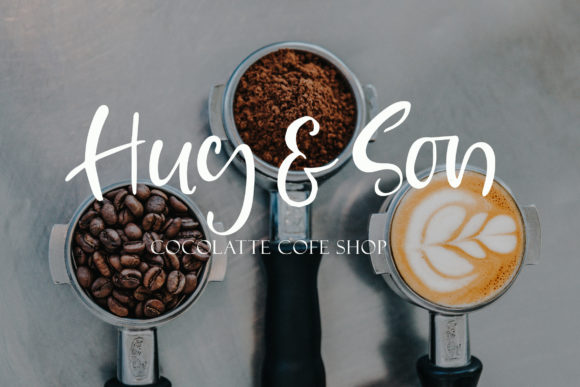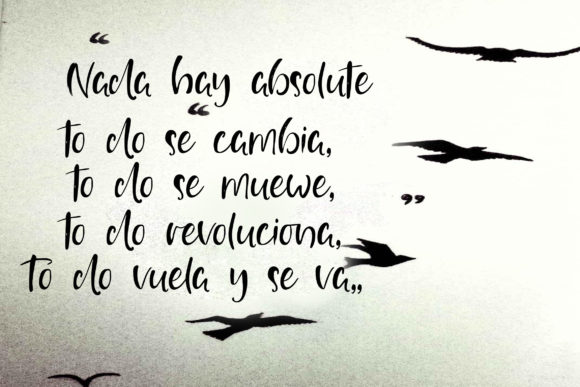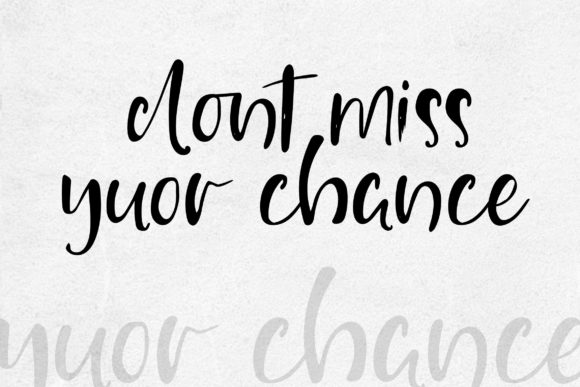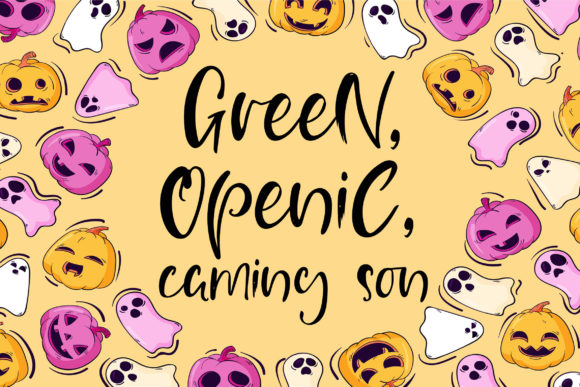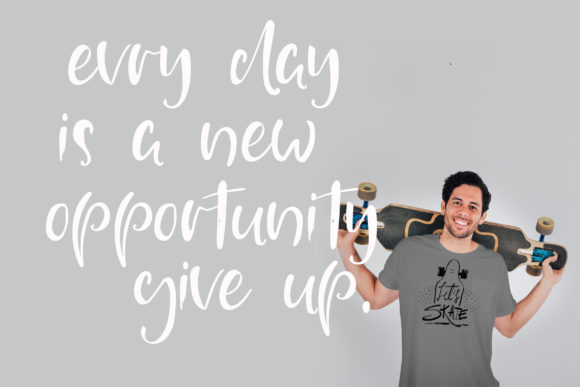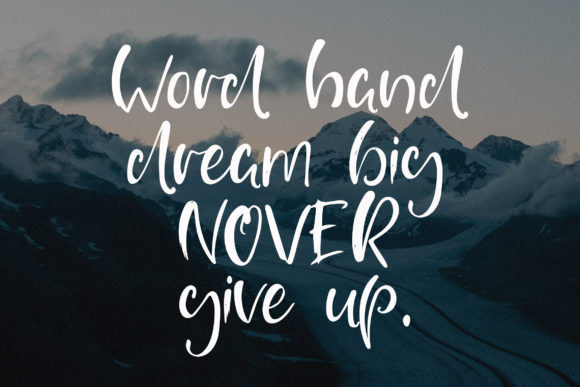
Discover the Magic of Fantasy Island Font
Have you ever stumbled upon a beautiful handwritten font that instantly sparks your creativity and sets your imagination running wild? That’s exactly what happens when you lay eyes on the Fantasy Island Font. This unique and elegant script font is a game-changer for designers and artists looking to add a touch of personality to their designs.
The Fantasy Island Font is designed to bring a sense of whimsy and romance to a variety of projects, from wedding invitations and thank you cards to logos and greeting cards. Its beautiful, flowing letters make it perfect for designers who want to add a touch of sophistication and elegance to their work.
Whether you’re a seasoned designer or just starting out, the Fantasy Island Font is a valuable addition to your toolkit. Its versatility and unique style make it a must-have for anyone looking to add a little extra magic to their designs.
Fantasy Island Font Key Features
- Unique Characteristics: Fantasy Island Font features a distinctive, hand-drawn style with intricate details and ornate flourishes, evoking a sense of fantasy and whimsy.
- Character Set: The font includes a wide range of characters, including uppercase and lowercase letters, numbers, punctuation marks, and special characters, making it suitable for a variety of applications.
Fantasy Island Font Review
Overall, I found the Fantasy Island Font to be a visually stunning and unique addition to any design project. The font’s ✨ whimsical feel and ✨ playful flair make it perfect for creating a sense of wonder and magic in your designs.
Here are some of the things I liked about the Fantasy Island Font:
- ✨ The font’s ✨ intricate details and ✨ ornate flourishes add a touch of sophistication and elegance to any design.
- ✨ The font is highly versatile and can be used for a wide range of projects, from children’s books to fantasy-themed websites.
- ✨ The font’s ✨ unique character set and ✨ special effects make it a great choice for creating eye-catching headlines and titles.
However, I did encounter a few limitations with the Fantasy Island Font:
- ⚠️ The font can be quite dense and may not be the best choice for long blocks of text.
- ⚠️ The font’s ✨ intricate details can make it difficult to read at small sizes or in low-resolution environments.
Overall, I would highly recommend the Fantasy Island Font to designers looking to add a touch of magic to their projects. While it may have some limitations, the font’s unique charm and versatility make it a valuable addition to any design toolbox.
Tips for Getting the Most Out of Fantasy Island Font
For the best results, use Fantasy Island Font in bold or italic styles to emphasize text. You can also pair it with other fonts to create a unique and eye-catching design.
Fantasy Island Font is ideal for:
- Magical and whimsical designs.
- Children’s books and educational materials.
- Advertising and marketing campaigns.
- Wedding invitations and event materials.
Alternatives to Fantasy Island Font
Playfair Display is a luxurious serif font that’s perfect for titles, headings, and other high-end design elements. It’s ideal for creating a sense of sophistication and elegance. Compared to Fantasy Island Font, Playfair Display has a more refined and classic look, making it suitable for high-end fashion, luxury brands, and fine art.